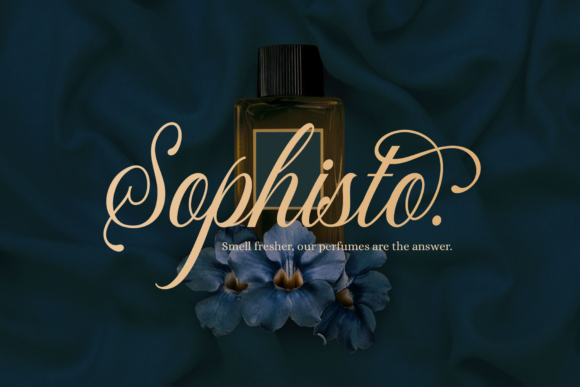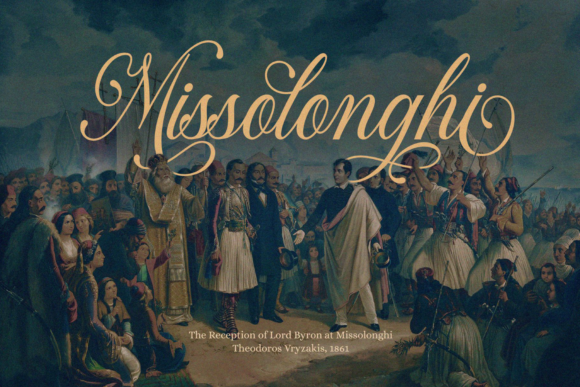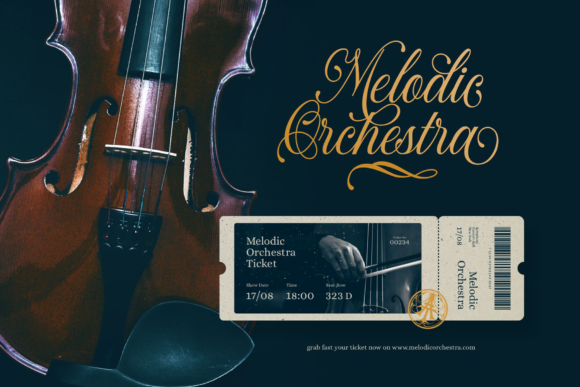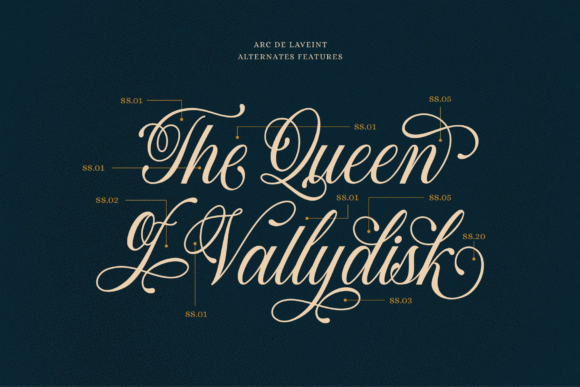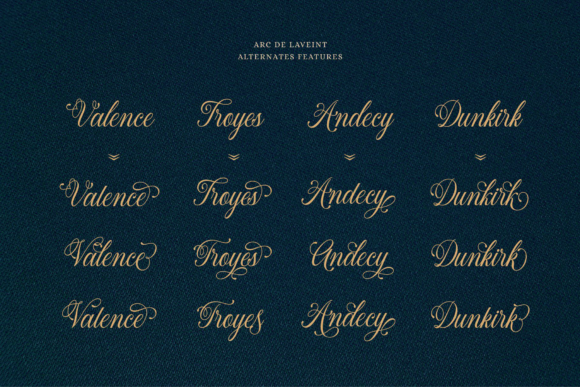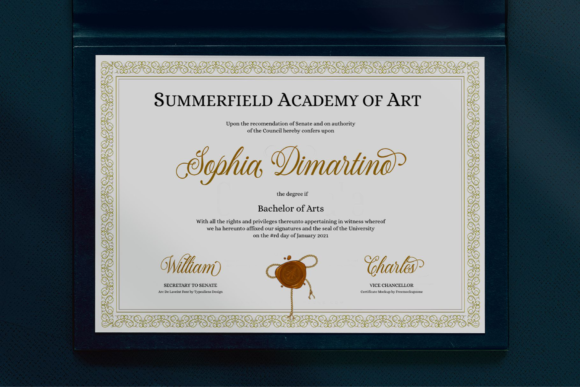
The Elegance of Arc De Laveint Font: A Designer’s New Best Friend
I’ll never forget the time I was working on a branding project for a luxury client, and I just couldn’t find the right font to convey the level of sophistication and elegance they needed. The client was specific about wanting something that exuded confidence and authenticity, but still had a touch of whimsy. I spent hours scouring font libraries and testing out different options, but nothing seemed quite right. That was until I stumbled upon Arc De Laveint Font. ✨
It was love at first sight! The flowing, handwritten script seemed to dance across the page, and I knew immediately that it was the perfect fit for my client’s brand. But what really sold me was its versatility – I could use it for everything from business cards to social media graphics, and it would always look stunning.
So, what do I love about Arc De Laveint Font? Here are just a few things:
• ✅ Elegant and sophisticated: This font is perfect for high-end branding, luxury packaging, or any project that needs a touch of glamour.
• ✨ Flowing and dynamic: The script style gives it a sense of movement and energy, making it perfect for headlines, titles, or any text that needs to stand out.
• 🔥 PUA encoded: This means that you can access all the glyphs and swashes with ease, giving you even more creative freedom.
• ⚠️ Some letters may require manual kerning: As with any script font, you may need to adjust the spacing between certain letters to get the best results.
• 🤔 Not ideal for body text: While Arc De Laveint Font is stunning, it’s not the best choice for long blocks of text. Stick to headlines, titles, and short paragraphs for the best results.
The Story Behind Arc De Laveint Font
Arc De Laveint Font was designed by a team of typographers who wanted to create a font that was both elegant and expressive. Inspired by the flowing scripts of the 18th century, they crafted a font that would be perfect for luxury branding, packaging, and more. The result is a font that is both sophisticated and beautiful, with a unique character that will elevate any design.
Q: What is Arc De Laveint Font? A: Arc De Laveint Font is a handwritten script font designed for luxury branding, packaging, and more.
Q: Is Arc De Laveint Font PUA encoded? A: Yes, Arc De Laveint Font is PUA encoded, making it easy to access all the glyphs and swashes.